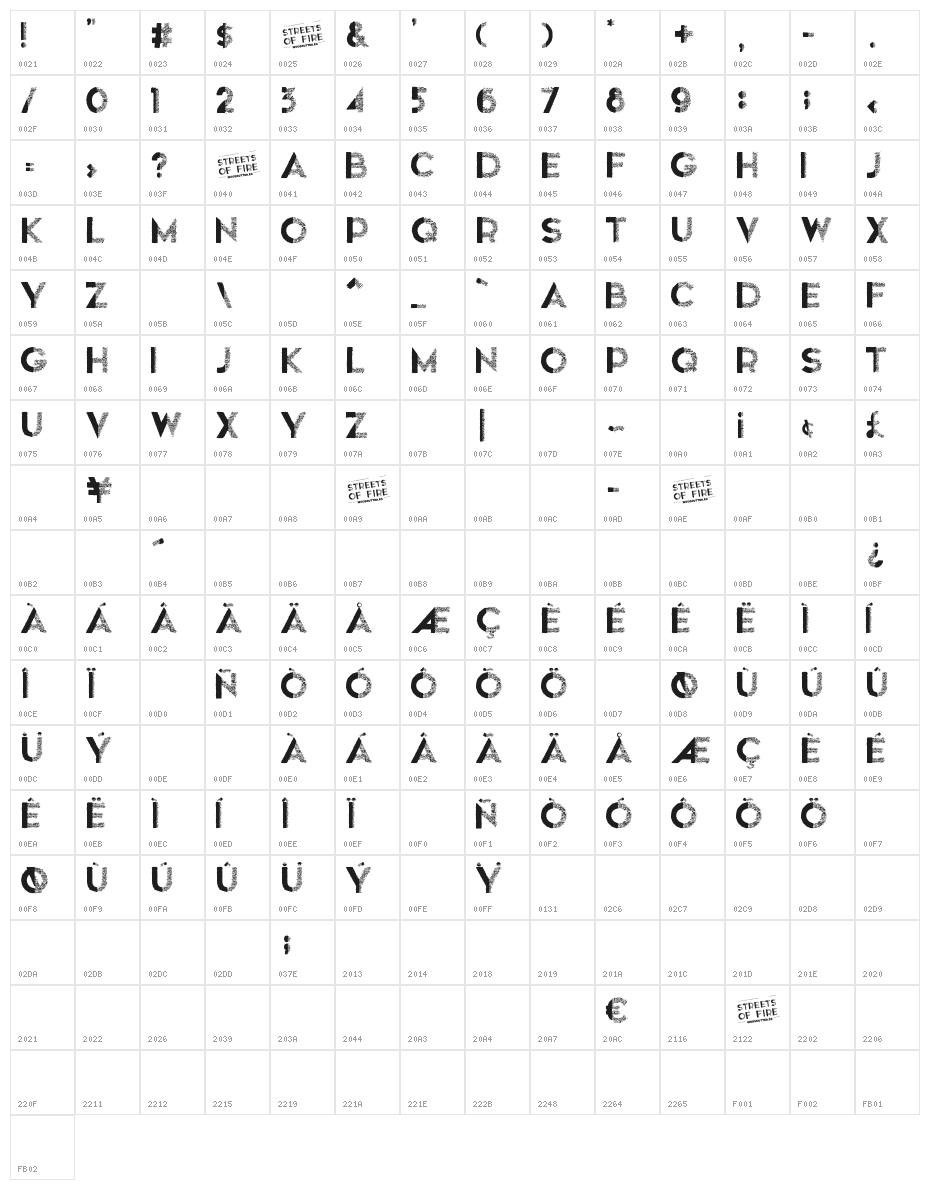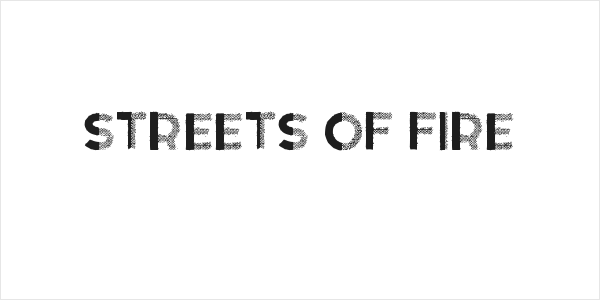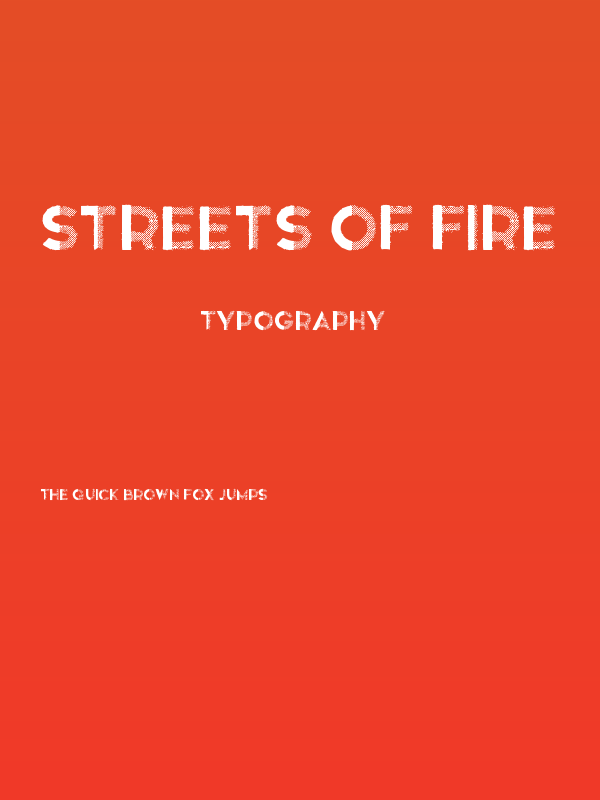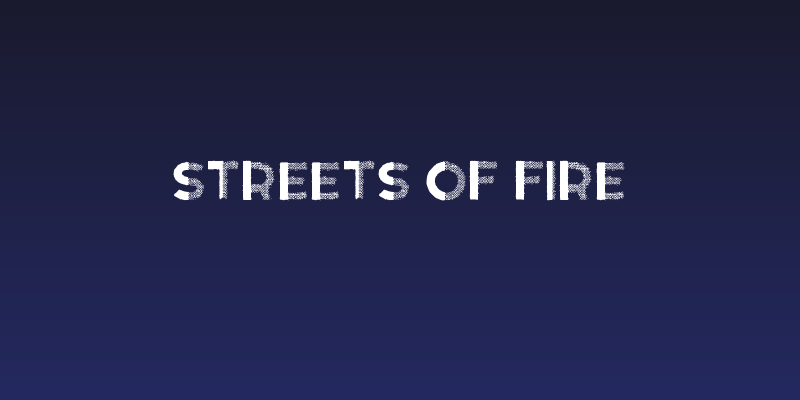
Streets of Fire Font
Streets of Fire Description
This font features a bold, distressed style with a halftone texture that gives it a gritty, urban feel. The uppercase letters are strong and geometric, while the numbers and special characters maintain the same rugged aesthetic. The texture adds a dynamic, almost tactile quality, making it stand out in any design. The characters are evenly spaced, ensuring readability despite the textured effect. This font is perfect for projects that require a bold statement with a touch of edginess.
| Overall Style | Modern, Urban, Edgy |
| Proposed Projects | Ideal for posters, album covers, streetwear branding, and urban-themed designs. |